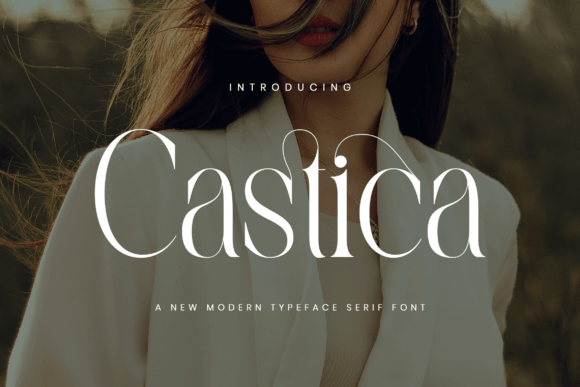
Discover the Elegance of Castica Font: A Minimalist’s Dream
Have you ever been in the middle of a design project, and suddenly, you’re struck by the daunting task of finding the perfect font? I recall a particularly frustrating moment when a client requested a logo that exuded elegance and simplicity. After hours of scouring through font libraries, I stumbled upon Castica Font, and it was love at first sight! ✨ In this article, we’ll dive into the world of Castica Font, exploring its features, uses, and what makes it an excellent addition to your design toolkit.
What is Castica Font?
Castica Font is a stylish ligature typeface that draws inspiration from famous minimalist logos. Its clean lines, elegant curves, and sophisticated feel make it perfect for designing templates, brochures, videos, advertising branding, logos, and more. This font comes in a regular (OTF/TTF) format, complete with standard glyphs, ligatures, and international accents, ensuring seamless compatibility with both PC and Mac systems.
• ✨ Elegant and minimalist design
• ✅ Easy to read and versatile
• 🎨 Ligatures and stylistic alternates for added creativity
• ⚠️ Limited font weights (only regular available)
• 🤔 Some users may find the font too delicate for certain design applications
Castica Font was inspired by the simplicity and elegance of famous logos. Its designer sought to create a font that would embody the same minimalist principles while offering a unique and stylish touch. The result is a font that exudes sophistication and refinement, perfect for designers seeking a versatile and elegant typeface.
Does Castica Font include ligatures and stylistic alternates? Yes, Castica Font features ligatures and stylistic alternates, allowing for added creativity and customization.